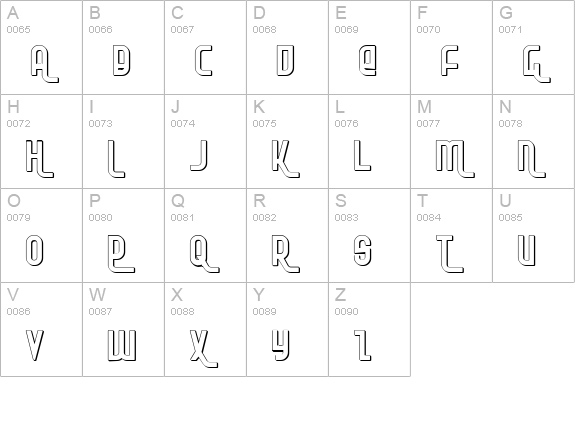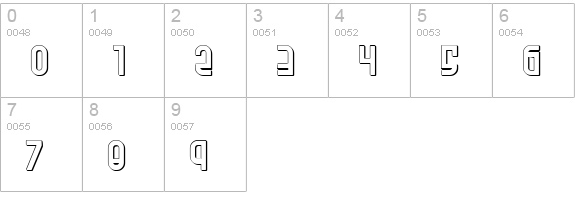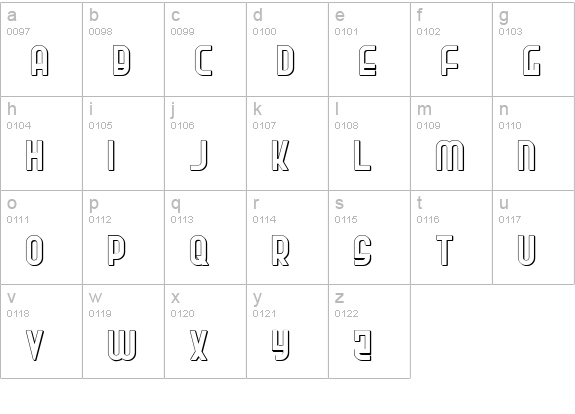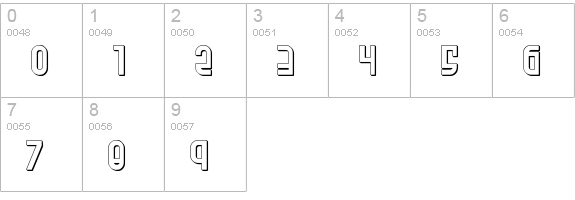
Ro'Ki'Kier Shadow font is a captivating and unique typeface that exudes an aura of mystery and elegance. Its intricate design features intricate shadows that add depth and dimension to each character, making it perfect for adding a touch of drama to your designs. This font is versatile and can be used for various projects, from branding to editorial design. The best part is that Ro'Ki'Kier Shadow font is completely free to download at FontsMarket.com. You can easily access this stunning font and incorporate it into your creative projects without any hassle. Don't miss out on the opportunity to enhance your designs with this eye-catching and stylish typeface. Download Ro'Ki'Kier Shadow font today and let your creativity shine!